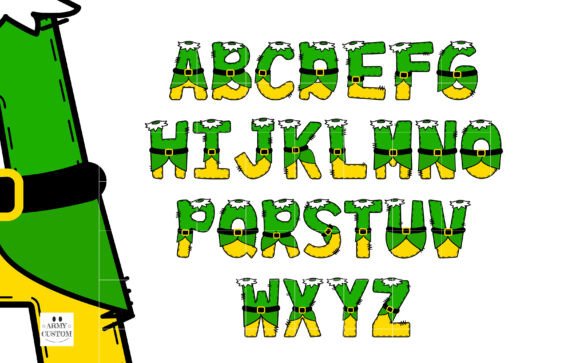
Elf Green Yellow Edition Font
🎄 Buddy Elf Green Yellow Edition Color Font – Whimsical Holiday Character Color Font
Meet Buddy Elf Green Yellow Edition Color Font – a festive, fun, and fully illustrated character colored font inspired by everyone’s favorite holiday elf! Each letter is dressed in classic elf costume style, complete with boots, belts, and cheerful holiday flair, making this font a must-have for Christmas crafts, cards, party decor, and seasonal branding.
Perfect for children’s projects, teacher resources, DIY stickers, or anything that calls for Christmas spirit and creativity. Buddy Elf Font is more than just text – it’s holiday magic in letterform!